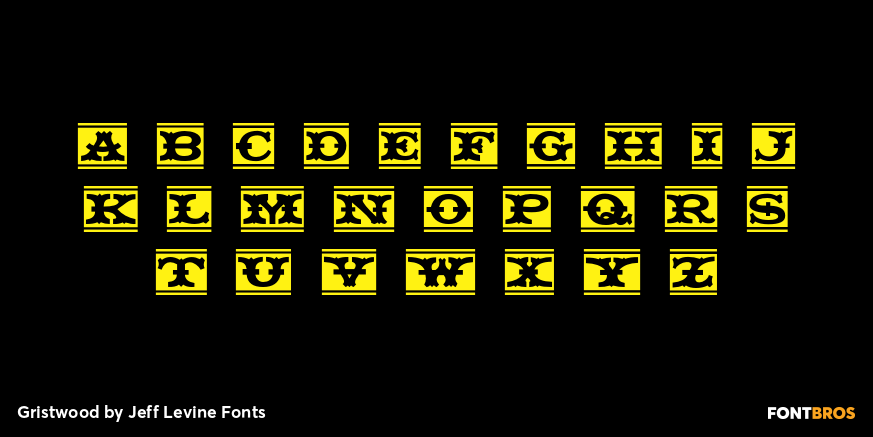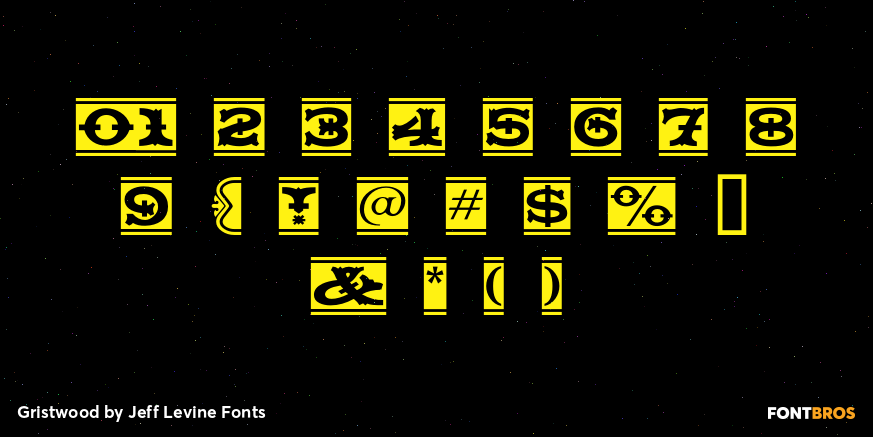
Gristwood
The rustic lettering which also served as the model for Grist Mill JNL is the basis for Gristwood JNL. Another set of vintage wood type has the letters reversed out of blocks, making for a specialty titling font.
Decorative end caps are located on the greater and less than keys and also on the plus and equal keys. A blank block for regular word spacing is on the underscore key, along with a wider blank box on the backslash key. This typeface has a somewhat limited character set .